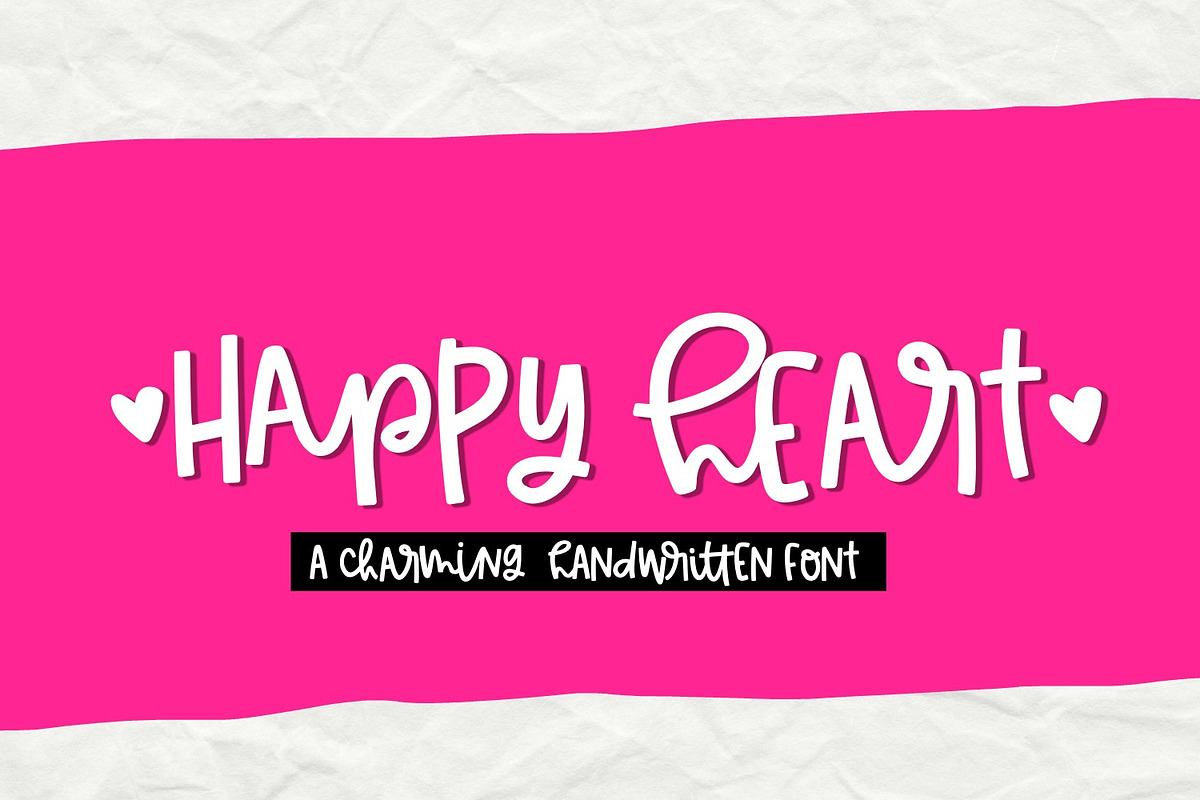
Happy Heart Handwritten Font Free Download
Happy Heart Handwritten Font Free Download is a charming and cheerful typeface that brings warmth and positivity to any project. With its smooth curves and personal touch, this font feels like a handwritten note from a close friend. It's perfect for greeting cards, love letters, social media posts, DIY crafts, and playful branding. The organic, flowing strokes add an emotional and authentic feel that connects with your audience on a deeper level. Whether you’re creating a Valentine’s Day card or designing a heartwarming campaign, Happy Heart Handwritten Font Free Download gives you a chance to test its feel-good vibes before going commercial. It’s a font that doesn’t just speak—it smiles. Add a sprinkle of happiness to your design work and let your words come to life with this delightful handwritten gem.